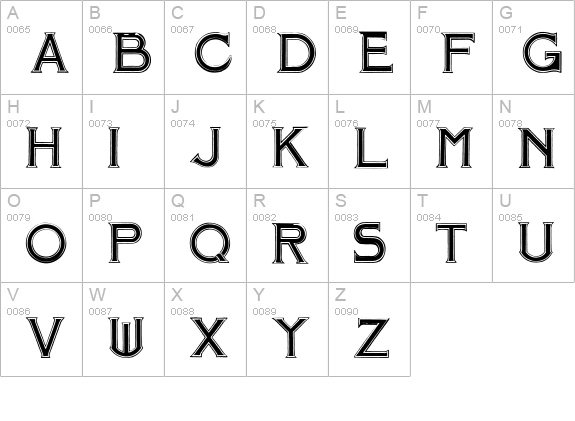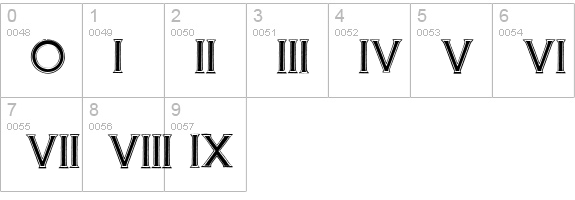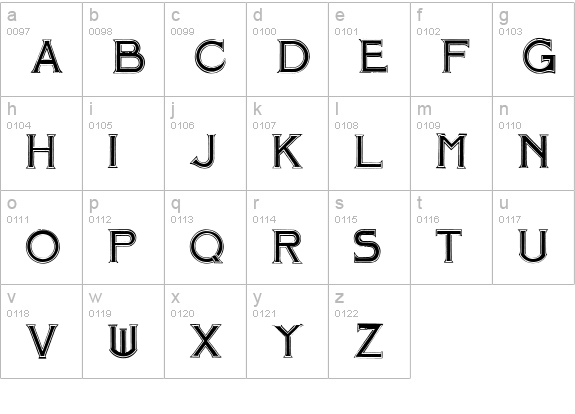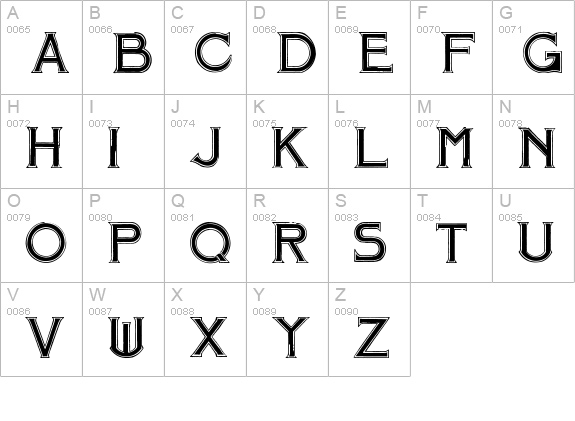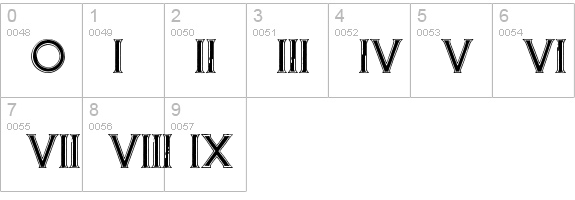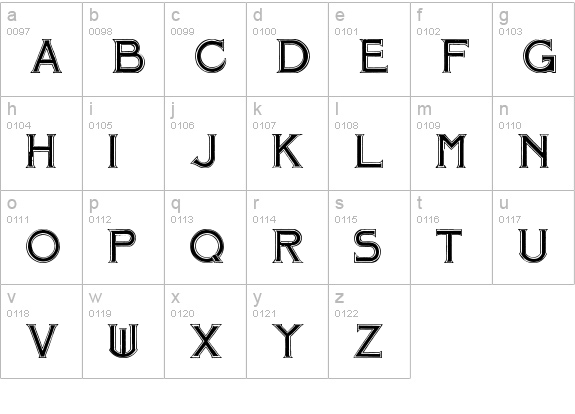
Mosaic Font Details
Introducing the captivating Mosaic font, a versatile typeface that seamlessly blends modern design elements with a timeless aesthetic. With its intricate patterns and unique textures, Mosaic adds a touch of elegance and sophistication to any project. This stunning font is perfect for creating eye-catching headlines, branding materials, invitations, and more. The best part? Mosaic font is available for free download at FontsMarket.com. Simply visit the website and add this exquisite typeface to your collection to elevate your design projects to the next level. Don't miss out on this opportunity to enhance your creative endeavors with the beauty and versatility of Mosaic font. Download it now and let your creativity shine!